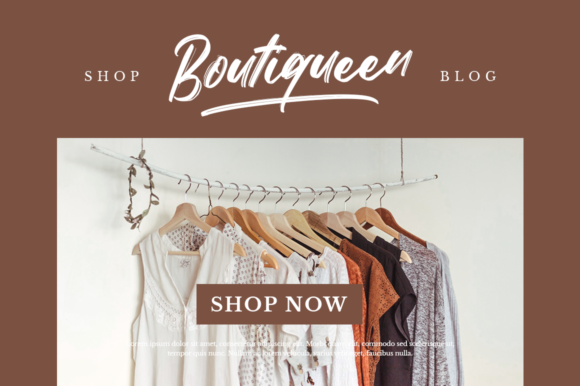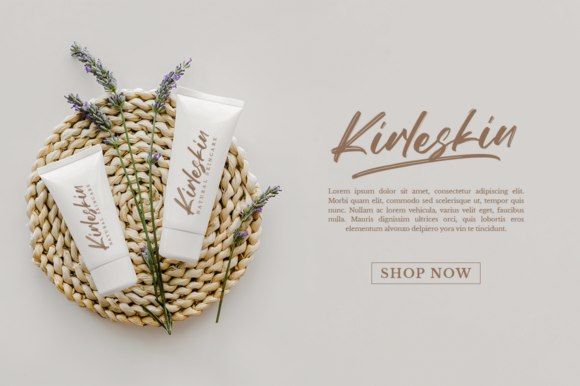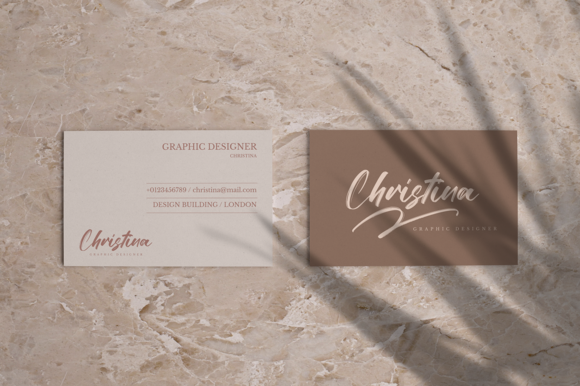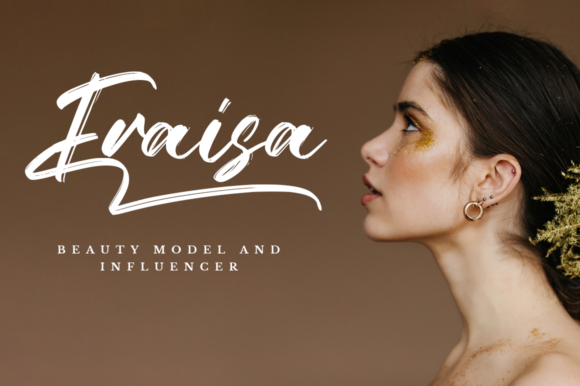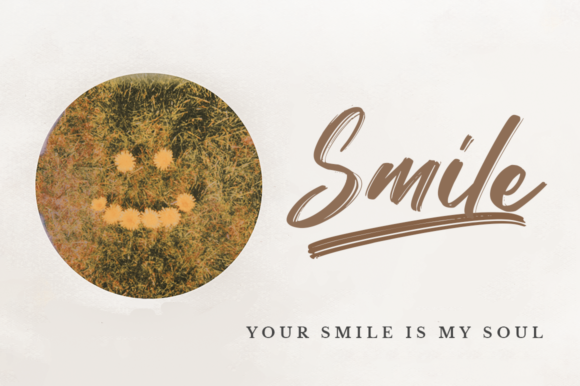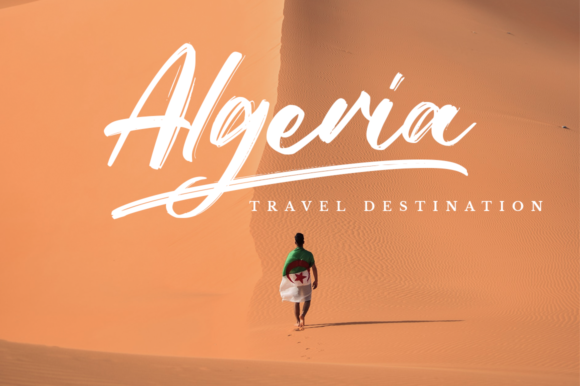
Discover the Timeless Elegance of Finesolla Font
Have you ever found yourself pouring your heart and soul into a design project, only to feel like something’s missing? The perfect font can make all the difference. For designers, the right typography can elevate a project from good to great, and that’s exactly what Finesolla Font is designed to do. This elegant script font is inspired by timeless classic calligraphy, with a contemporary twist that’s sure to captivate.
Finesolla Font is more than just a pretty face – it’s a powerful tool that can add sophistication and personality to any project. With its balanced and varied lines, it’s the perfect choice for designers who want to create beautiful, professional-looking designs that stand out from the crowd. Whether you’re working on a branding project, a wedding invitation, or a blog post, Finesolla Font is sure to bring your vision to life.
Finesolla Font Key Features
- Unique Characteristics: The font features a unique blend of modern and vintage elements, with intricate details and subtle textures that add a touch of elegance to any design.
- Legibility: Despite its intricate design, Finesolla Font is highly legible, making it an excellent choice for body text, titles, and headings in various design projects.
- Language Support: The font supports a wide range of languages, including Latin, Cyrillic, and Greek alphabets, making it a versatile choice for global design projects.
Finesolla Font Review
As a designer, I was excited to dive into the world of Finesolla Font and see what it had to offer. Here’s my honest review.
The Finesolla Font has a unique, elegant aesthetic that sets it apart from more generic fonts. It’s perfect for creating a sophisticated and refined look for branding, headings, and body text.
- Clean lines and minimalistic design make it easy to read and visually appealing.
- The font is highly versatile, suitable for a wide range of applications, from digital interfaces to print materials.
- The font’s nuances and subtleties make it perfect for adding depth and character to your designs.
While Finesolla Font is a great choice for many projects, it does have some limitations.
- The font may be too elegant for more playful or casual designs, where a bolder or more whimsical font may be more suitable.
- The font’s nuances can sometimes make it difficult to read in certain situations, such as at small font sizes or in low-light conditions.
- The font may not be suitable for use in applications where a more straightforward or easy-to-read font is necessary.
Overall, I think Finesolla Font is a great choice for designers who want to add a touch of sophistication and elegance to their work. While it may have some limitations, its unique aesthetic and versatility make it a valuable addition to any designer’s toolkit.
Tips for Getting the Most Out of Finesolla Font
Experiment with different font sizes and styles to create visual interest. Use Finesolla font for headings and subheadings to add elegance to your design.
Finesolla font is suitable for:
- Food and beverage branding
- Beauty and wellness packaging
- Stationery and greeting cards
Alternatives to Finesolla Font for Designers
Playfair Display is an elegant, high-end serif font perfect for creating luxurious and sophisticated designs. It’s ideal for use in logos, headings, and titles where a touch of sophistication is needed.
Comparison to Finesolla Font: While both fonts are elegant and refined, Playfair Display has a more luxurious and high-end feel, making it suitable for premium brands and designs. Finesolla Font, on the other hand, has a more subtle and understated elegance.